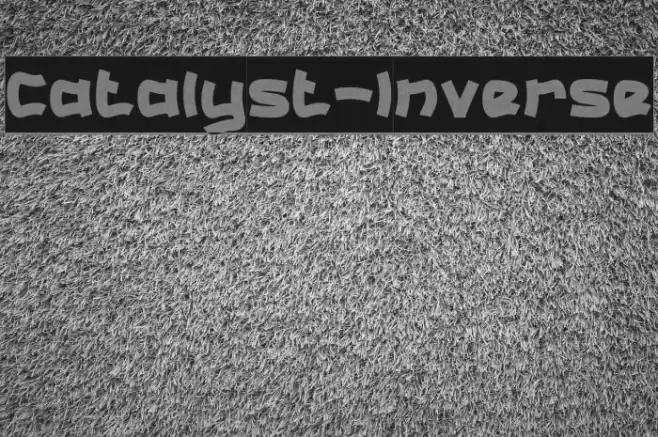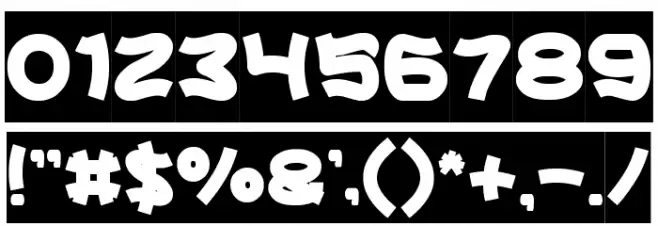
Catalyst-Inverse Font
Catalyst-Inverse Description
This font features a bold and dynamic style with a playful, almost cartoonish appearance. The letters have a unique, irregular shape that gives them a lively and energetic feel. The strokes are thick and consistent, with a slight inward curve on some characters, adding to the whimsical nature of the design. The font maintains a strong presence with its bold weight, making it suitable for eye-catching headlines and creative projects. The characters are well-spaced, ensuring readability while retaining their distinctive style. The numbers and special characters follow the same playful design, making them cohesive with the alphabet.
A bold, playful font with irregular, cartoonish shapes and thick strokes from Uncategorized fonts.
- Proposed Projects: Ideal for children's books, comic strips, playful branding, and eye-catching posters.
- Overall Style: Playful, Cartoonish